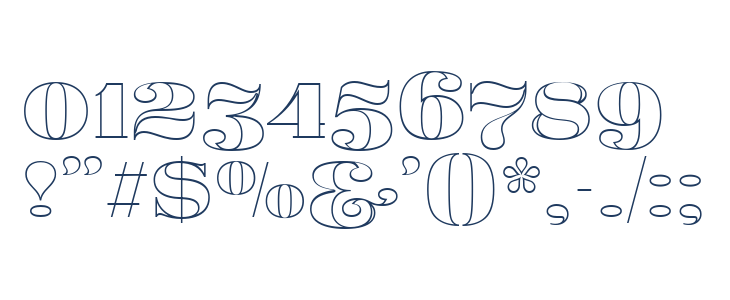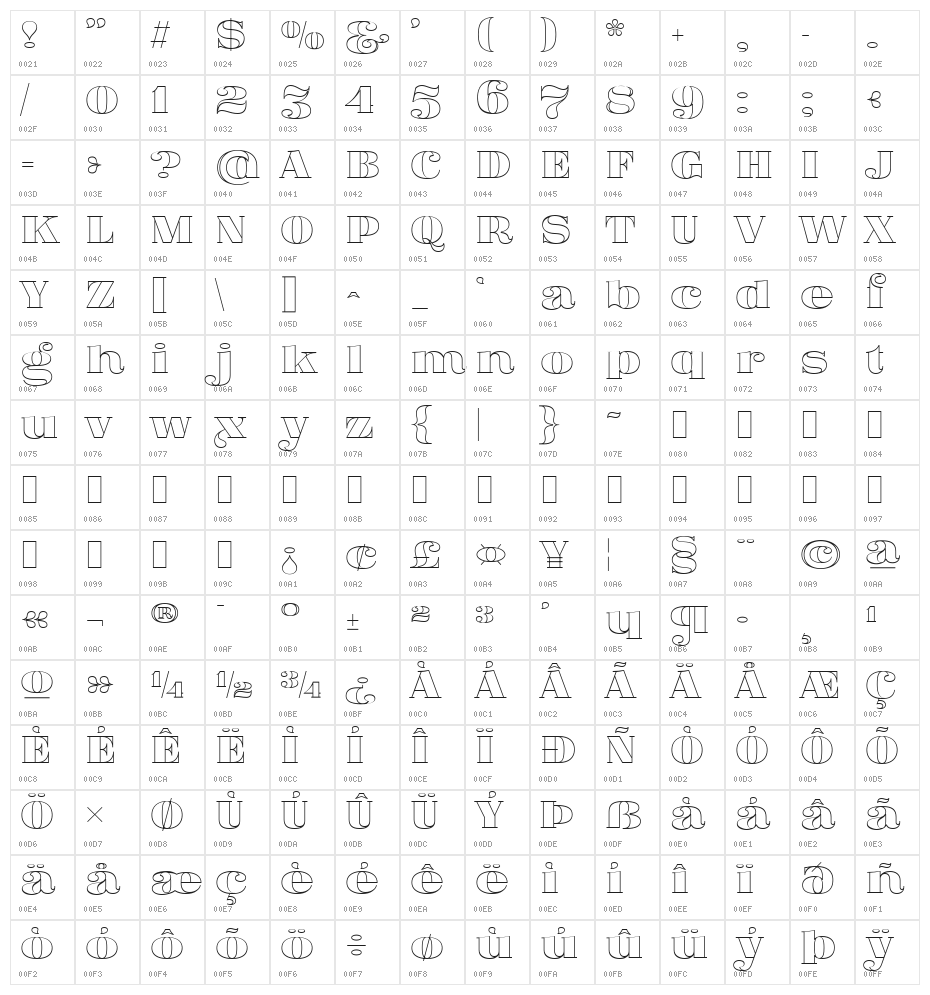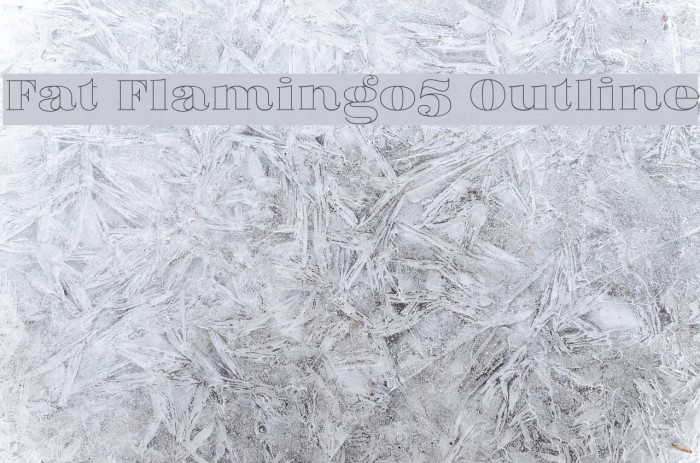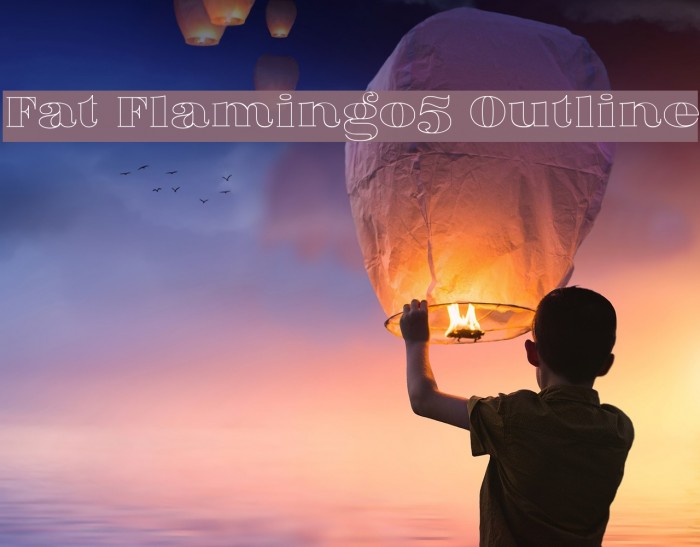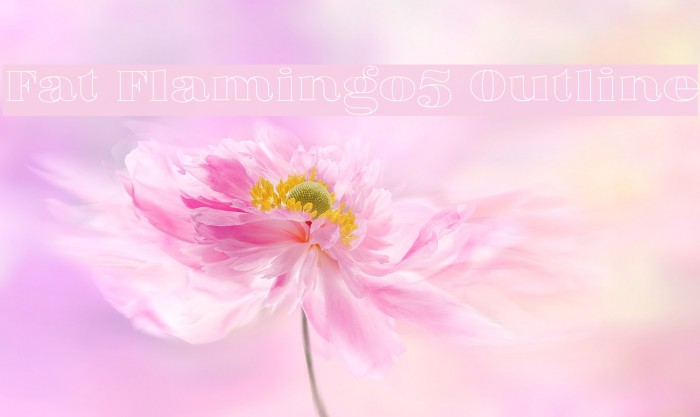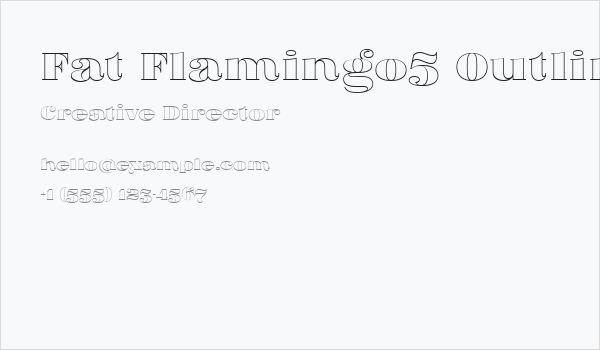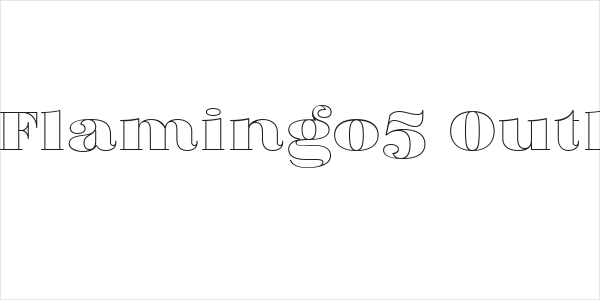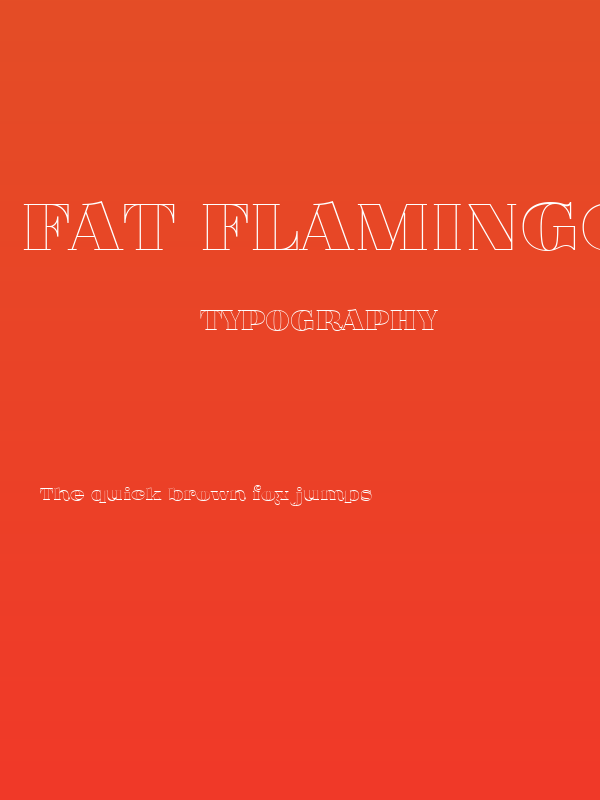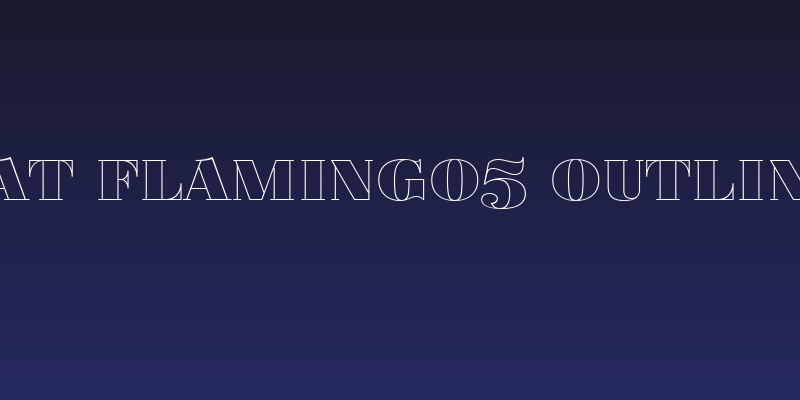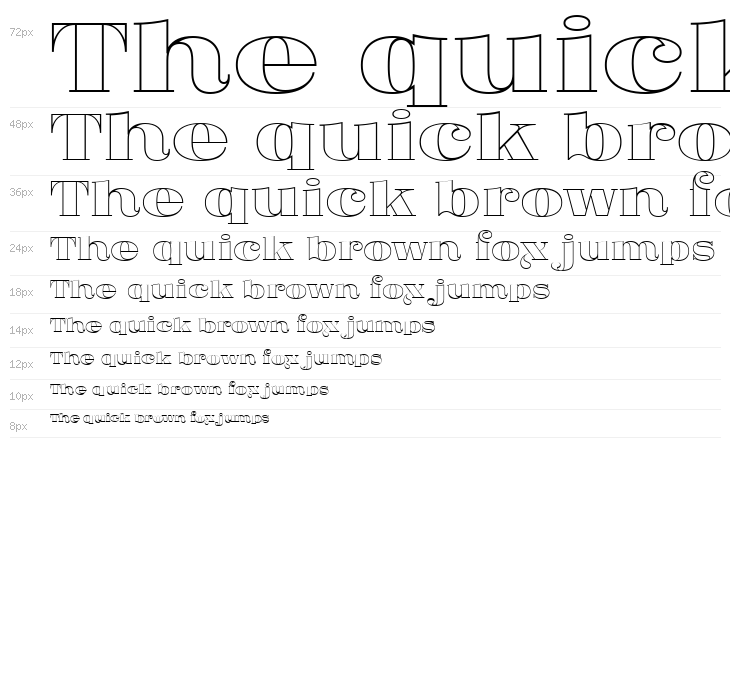
Fat Flamingo5 Outline Font
Fat Flamingo5 Outline Description
This font features a unique outline style with a playful and decorative flair. The characters are designed with a distinct outline that gives them a hollow appearance, adding a sense of lightness and creativity. The uppercase letters are bold and structured, while the lowercase letters maintain a consistent style with slight variations in curves and loops. The numerals are equally stylized, ensuring a cohesive look across all characters. Special characters are included, maintaining the same outlined aesthetic, making this font versatile for various design needs.
| Proposed Projects | Ideal for creative projects such as posters, invitations, and branding materials where a playful and decorative touch is desired. |